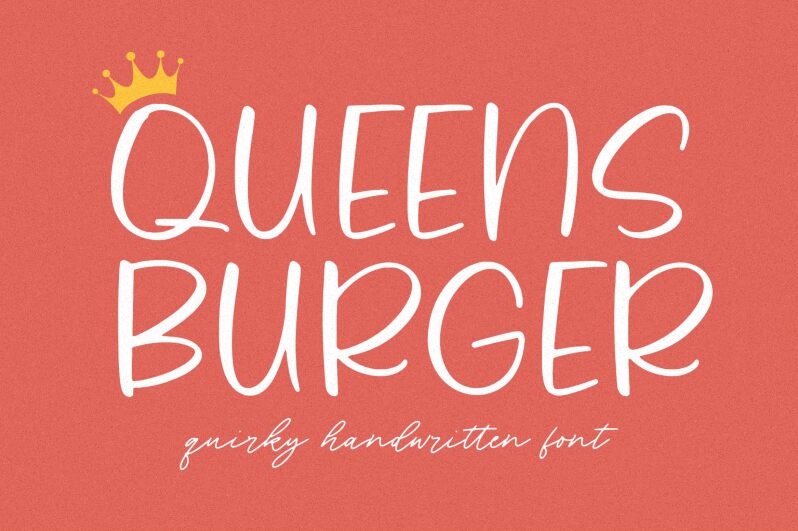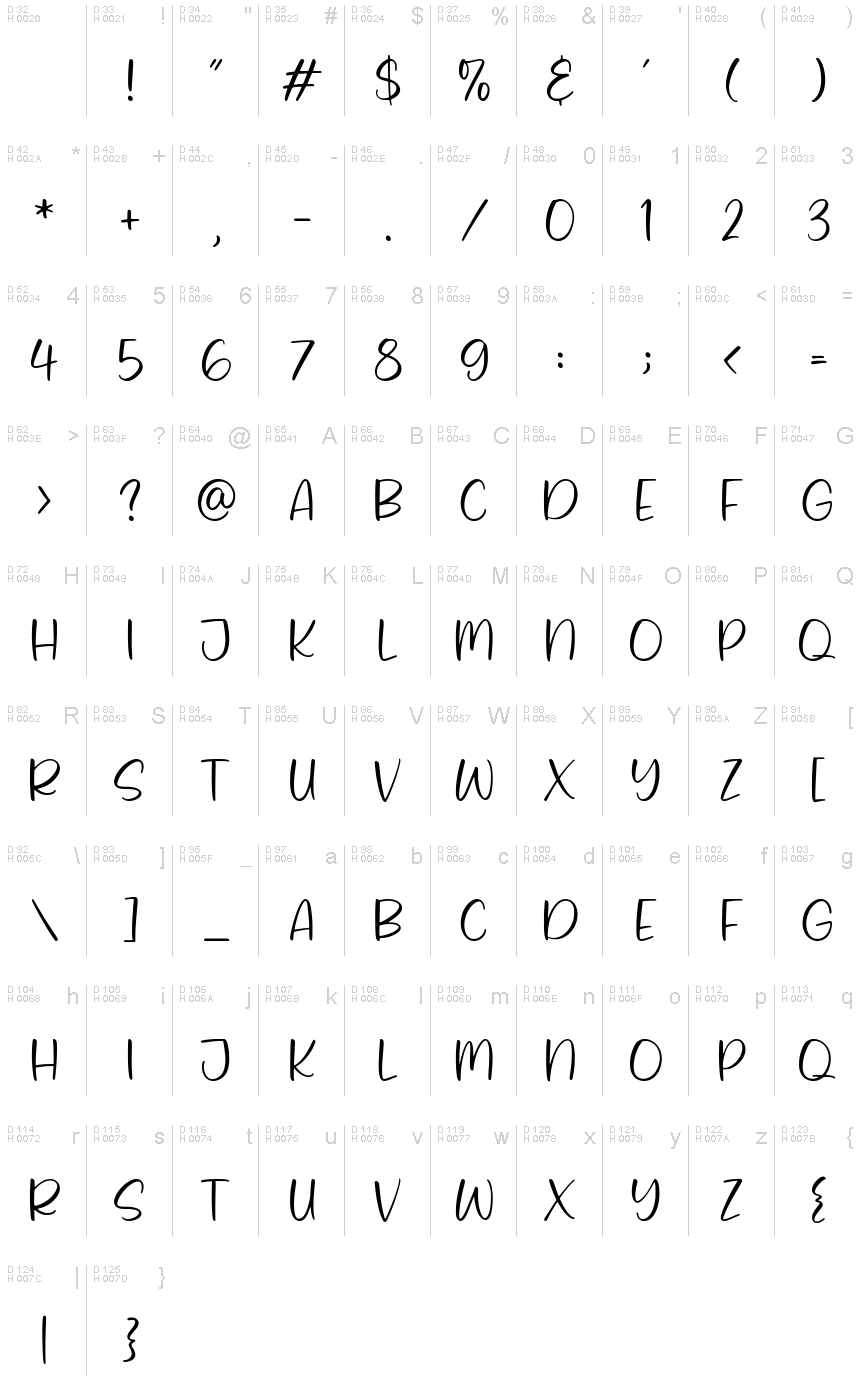
Queens Burger
Queens Burger font, designed by Balpirick Studio, exudes a playful and inviting charm characteristic of handwritten styles. Its fluid strokes and airy presence make it feel personal and approachable, perfect for capturing attention without overwhelming the viewer. The unique curves lend an organic touch that can effortlessly evoke warmth and creativity.
Ideal for branding in culinary ventures, cafés, or any project that seeks to convey a sense of friendliness and fun, Queens Burger stands out in promotional materials or menu designs. Its vibrant aesthetic encourages engagement, making it an excellent choice for packaging or signage that aims to resonate with a youthful audience. Embrace the energy of Queens Burger to add a distinct character to your visual narratives.